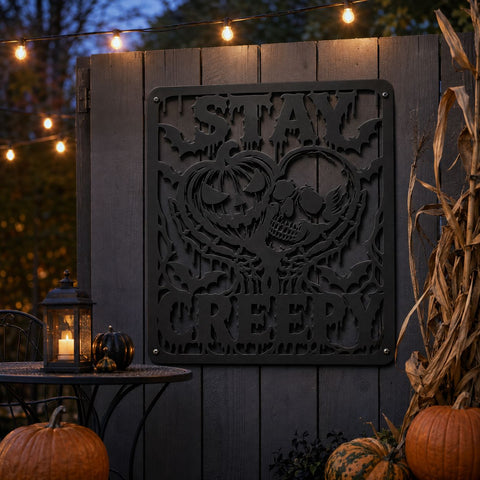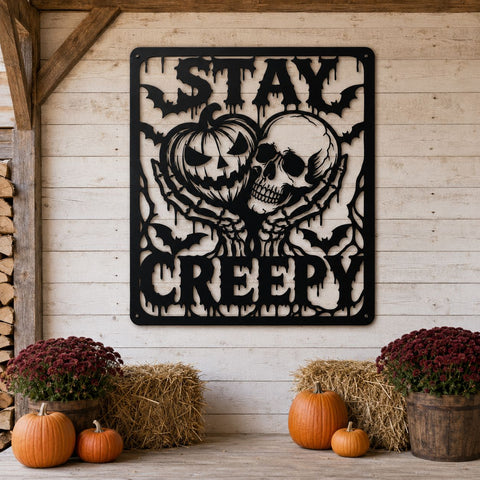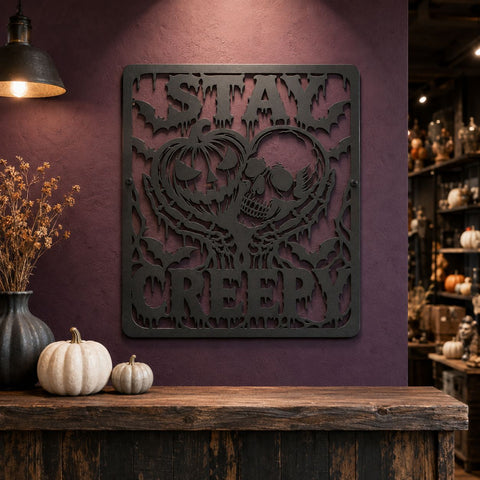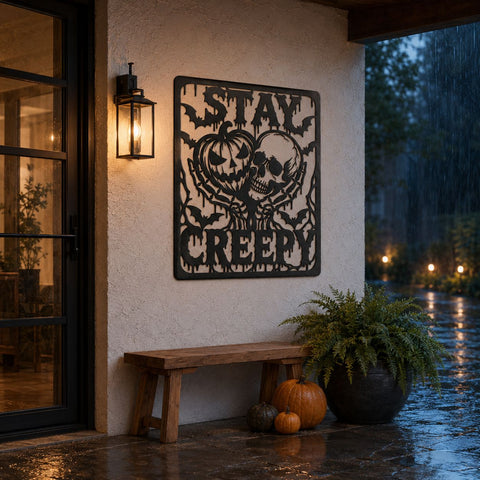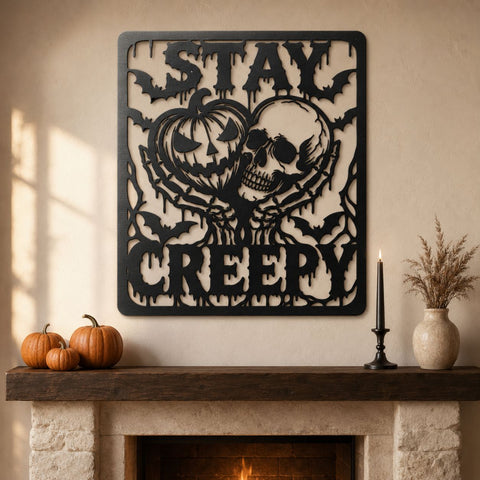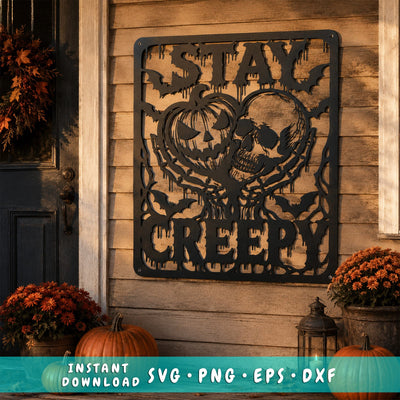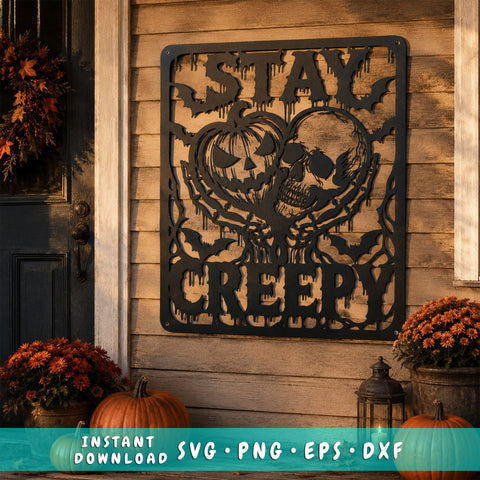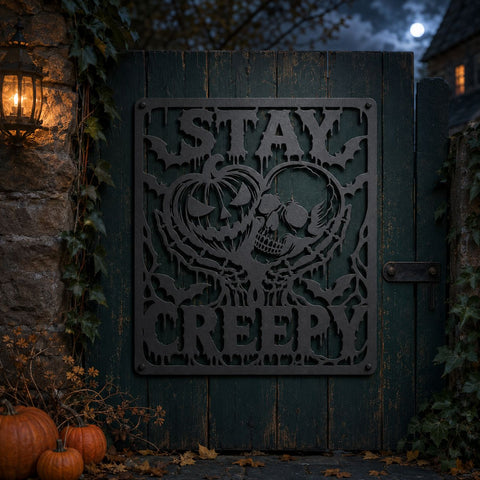
Add a creepy Halloween touch to your laser cutting collection with this Stay Creepy Halloween design, featuring a grinning jack-o'-lantern, spooky skeleton, flying bats, dripping lettering, and a bold gothic frame.
Designed for laser cutting, plasma cutting, CNC projects, and metal art, this detailed Halloween cut file is ideal for creating porch signs, wall decor, door decorations, yard art, seasonal displays, and spooky gifts.
The bold silhouette-style artwork works especially well for metal signs, wood projects, and other laser or CNC-cut materials. Resize the design to suit your project and adjust machine settings according to your material and equipment.